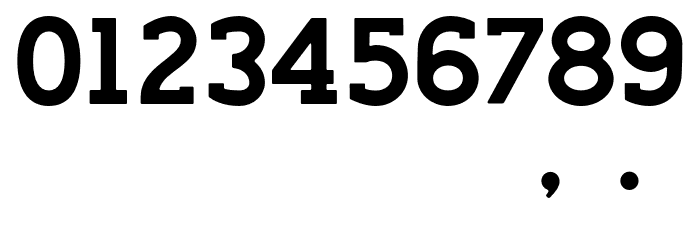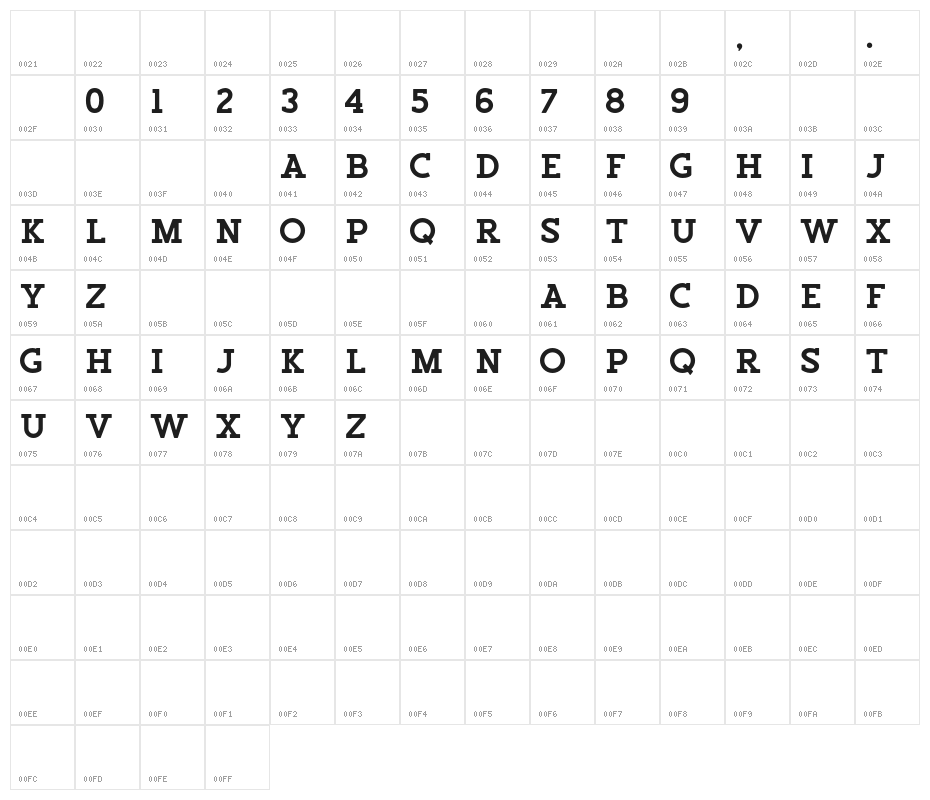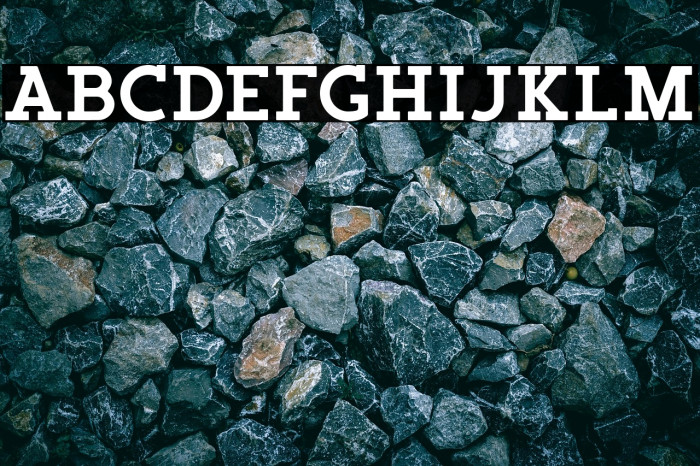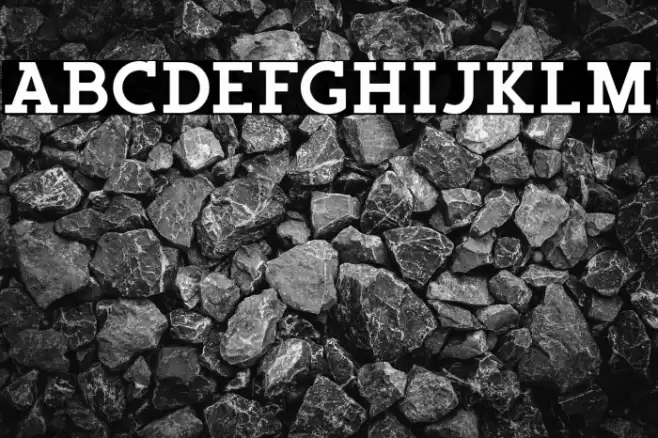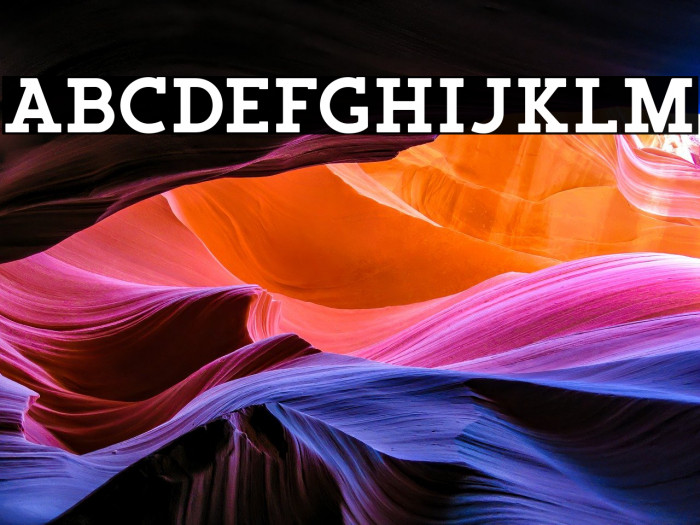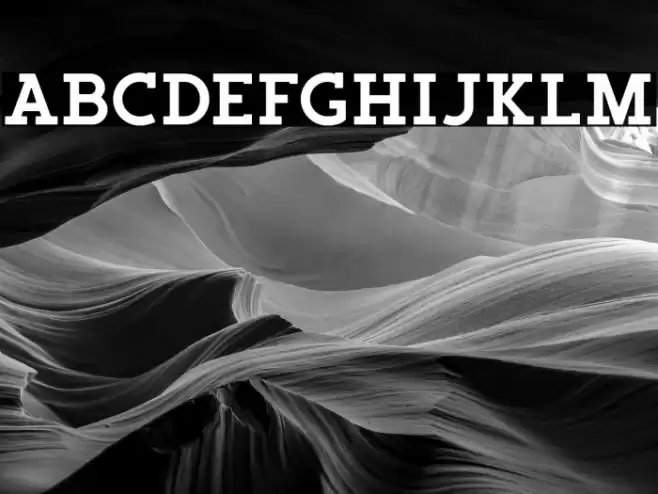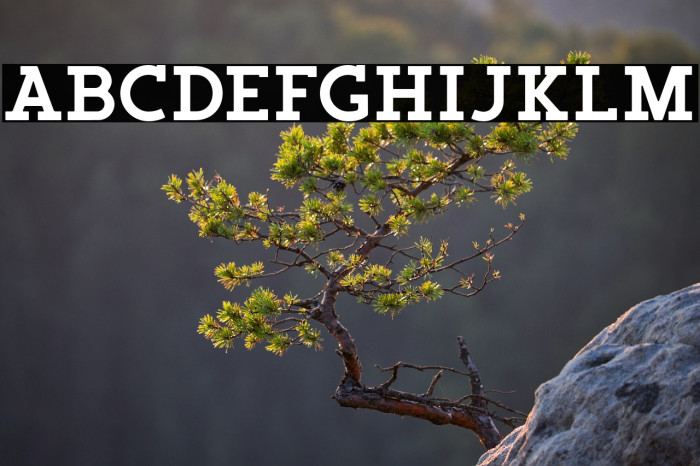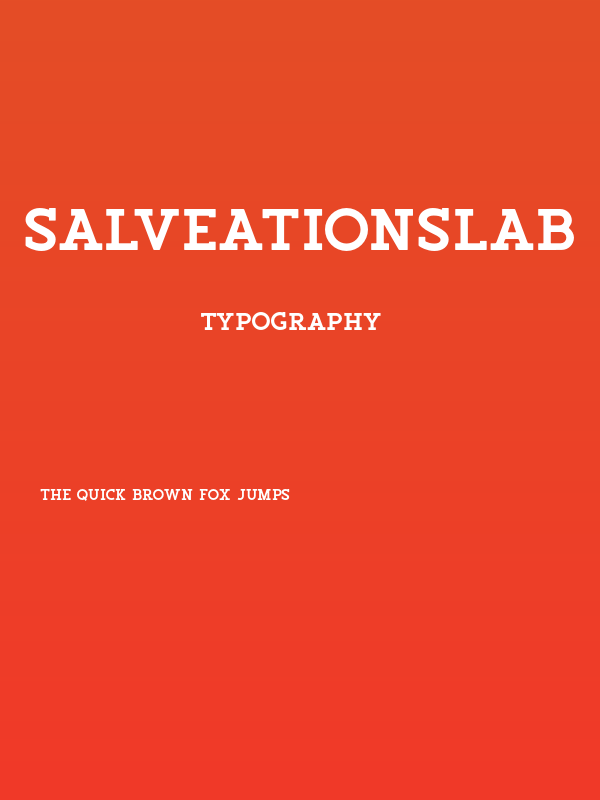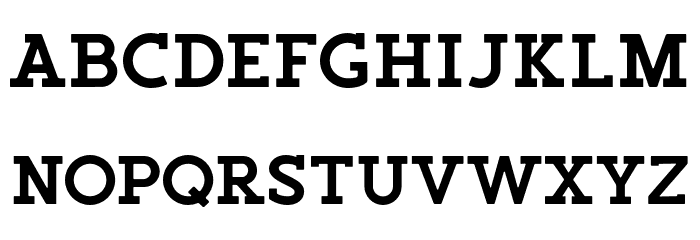
SalveationSlab Font
SalveationSlab Description
This font features a robust and bold slab serif design, characterized by thick, block-like serifs that provide a strong and authoritative presence. The uppercase letters are uniformly bold, with a consistent stroke width that enhances readability and impact. The numerals are equally bold, ensuring clarity and prominence in any context. The overall design is clean and modern, yet retains a classic feel due to the traditional serif elements. This font is versatile, suitable for both digital and print media, and can be used effectively in various design projects that require a strong typographic statement.